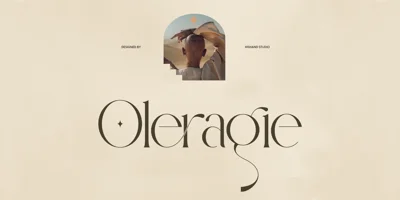
Oleragie Font
Oleragie Font is perfect for elegant fashion magazines, luxury brand identity, sophisticated wedding invitations, high-end cosmetic packaging, premium wine labels, artistic gallery exhibitions, refined restaurant menus, boutique hotel signage, exclusive jewelry catalogs, and upscale lifestyle publications that require graceful typography with contemporary sophistication and timeless elegance.
What makes Oleragie Font so exciting is its exquisite balance of modern refinement with classical typographic principles that creates an atmosphere of sophisticated luxury. This font features flowing, organic letterforms with subtle curves and elegant proportions that convey both warmth and exclusivity. The carefully crafted character shapes demonstrate meticulous attention to detail, with each letter designed to work harmoniously within sophisticated design compositions while maintaining exceptional readability across various applications.
The Oleragie Font family includes multiple weights and styles: Thin, Light, Regular, Medium, Bold, and their corresponding Italic variants. Each weight maintains the signature elegant character while offering comprehensive flexibility for sophisticated design applications and refined typographic hierarchies.
Luxury designers consistently choose Oleragie Font for projects requiring sophisticated typography that embodies refinement and contemporary elegance. Whether you're developing premium brand identities, creating high-end marketing materials, designing exclusive event invitations, or crafting sophisticated editorial layouts, this font delivers exceptional grace and visual sophistication. The font's comprehensive character set includes stylistic alternates and ligatures while ensuring optimal performance across both digital and print luxury applications, making it an essential tool for designers working on upscale projects that demand elegant, refined, and contemporarily sophisticated typography solutions with timeless appeal and modern functionality.